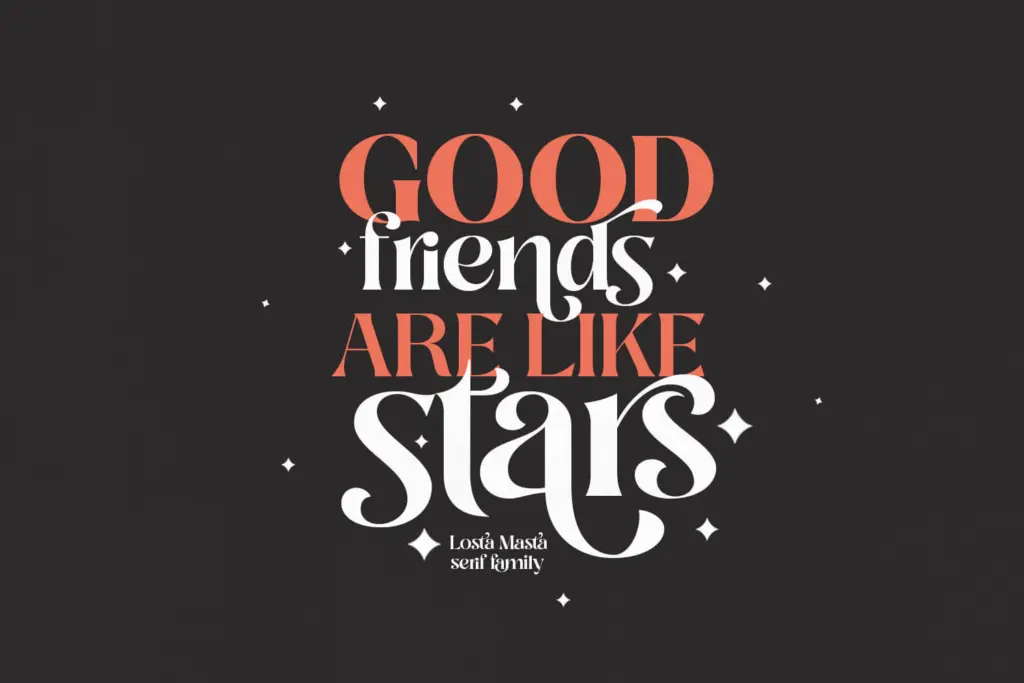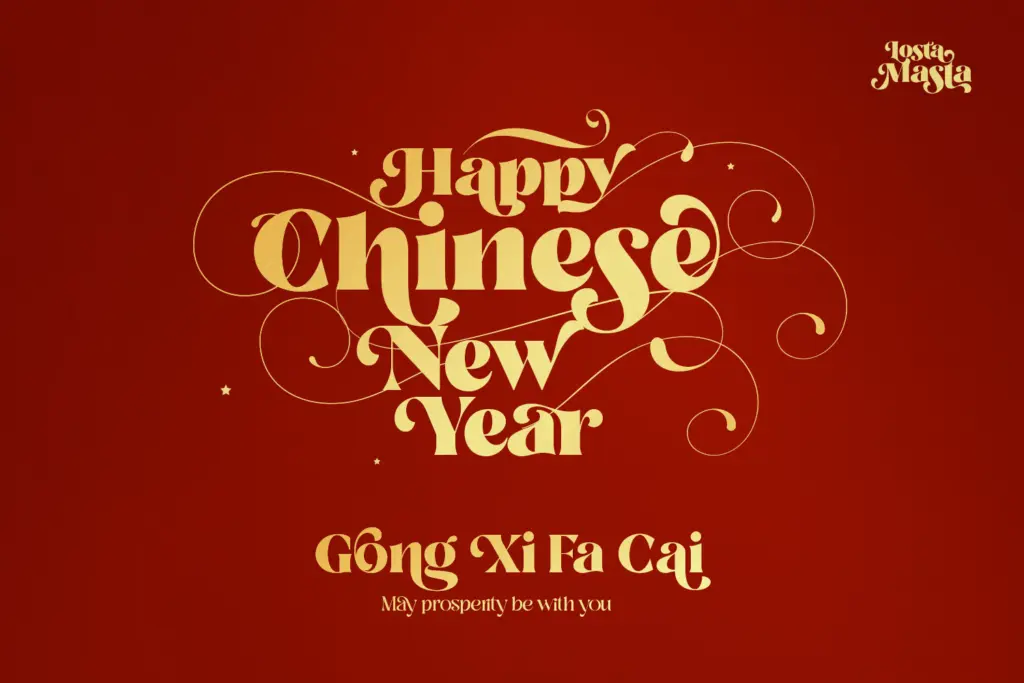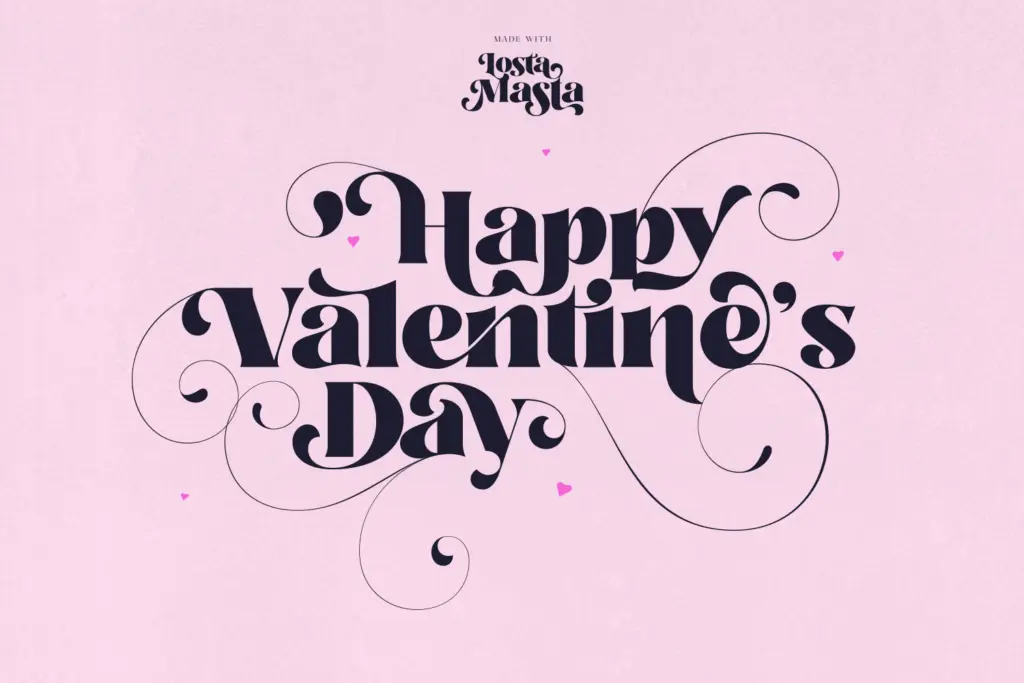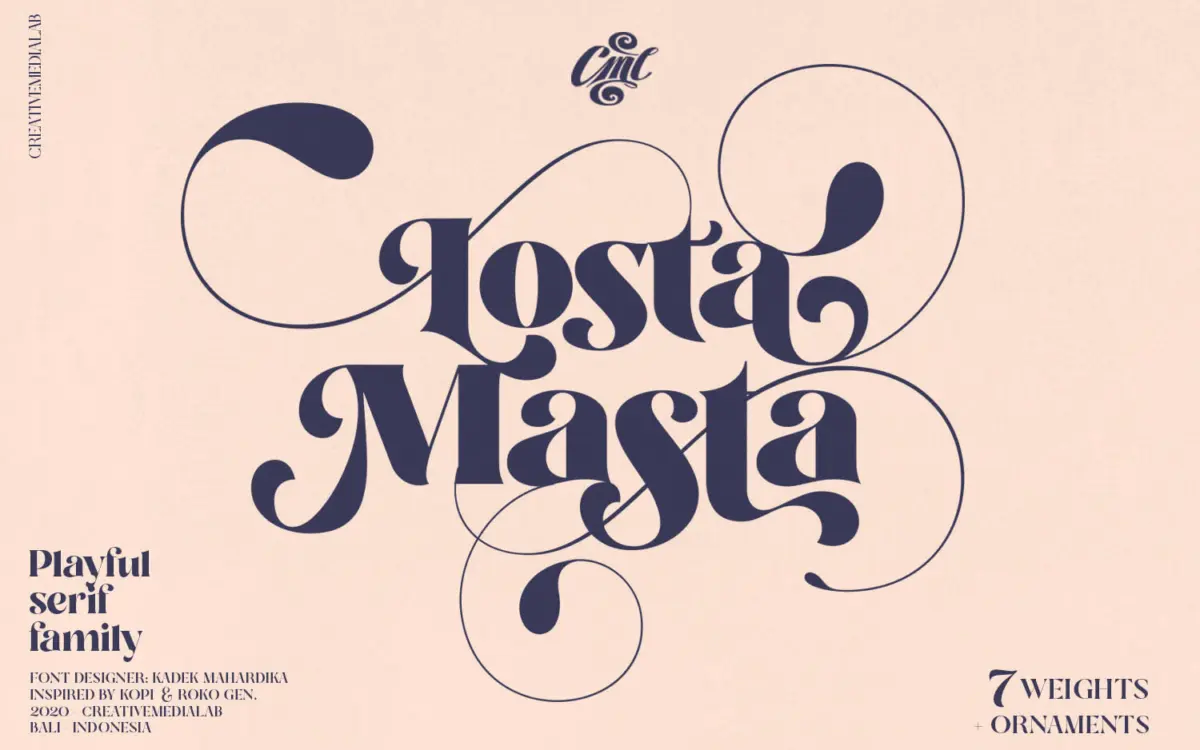
Losta Masta free download pages are common, but none of the ones we found come from the people who made it. Losta Masta is a commercial serif family by Kadek Mahardika, published by the Bali foundry Creativemedialab, and we could not confirm any official free or personal-use version.
Losta Masta specimen and verified specs
- Styles: 8 (Black, Bold, ExtraBold, Light, Medium, Ornaments, Regular, Thin)
- Glyphs: 490
- Language support: Basic Latin (English), Western European
- OpenType features: discretionary ligatures, stylistic alternates, kerning, fractions, 6 stylistic sets
- PUA-encoded extras: 150 glyphs (usable in Canva and Cricut)
- Designer: Kadek Mahardika
Design and character
Losta Masta is a high-contrast display serif with a lot of movement. In the specimens rendered from the licensed files, thick strokes swell and then pinch into hairlines, serifs flare out in wedge shapes, and several letters end in curls. The a and the t sweep out at the baseline into upturned tails, the M has flared legs, the g has a big open lower loop, and the Q finishes in a long, curling tail. The ampersand is a large, calligraphic figure that sits well above the other characters.
The heavier weights look chunky and warm, close to 1970s packaging lettering, while Thin and Light feel more refined and editorial. The designer describes it as a “unique, playful and versatile serif family” suited to magazines, postcards, logos, vintage designs and wedding work, which matches what the specimens show.
What’s in the Losta Masta package
- 8 fonts: Thin, Light, Regular, Medium, Bold, ExtraBold, Black and Ornaments
- Glyphs: 490 in the Regular, per the files we inspected
- Extras: the listing promotes 40+ ligatures and 100+ alternates
The Ornaments font holds swirls, scrolls and flourish dividers in the same curly style, useful for framing a name or separating lines on an invitation. Creative Market shows the product created in April 2020, and MyFonts gives its debut as April 5, 2020.
Language support and OpenType features
Our copy covers Basic Latin (English) and Western European languages. The listing also claims Central/Eastern European, Baltic, Turkish and Romanian support; test any specific accented letters you need.
The OpenType features in the files:
- Discretionary ligatures: optional joined letter pairs you switch on yourself.
- Stylistic alternates: swaps a letter for a curlier variant.
- Six stylistic sets: grouped alternate designs you can turn on as a set, so a whole word changes style at once.
- Kerning: automatic spacing fixes between letter pairs, applied in nearly every app.
- Fractions: builds proper fractions from typed numbers.
Best uses and font pairings
Losta Masta is strongest on one to five words at large size: a couple’s names on a wedding invitation, a bakery or boutique logo, a book or album title, or a pull quote. The swelling strokes and tight curls fill in at small sizes, so keep it out of body text and UI.
- Lato or Nunito Sans for supporting text; a plain sans lets the curls stand out.
Who designed Losta Masta?
Kadek Mahardika, for the Creativemedialab foundry in Bali.
Does it include ornaments?
Yes. A separate Ornaments font ships with the family.